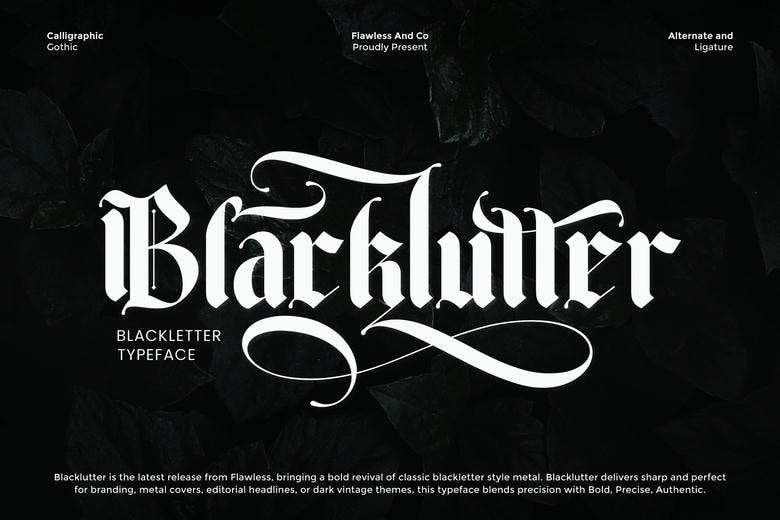
Blacklutter Font
Blacklutter is an aggressive and strong blackletter typeface that blends tradition of gothic with the contemporary. Broadcastr has strong lines, visual impact, bold strokes, and stylized letter forms which makes it good for designs that need power, authority and style. This font is great for branding, logos, posters, merchandise, album covers, clothing design, tattoo alphabetic script and more.
Blacklutter Blackletter Font